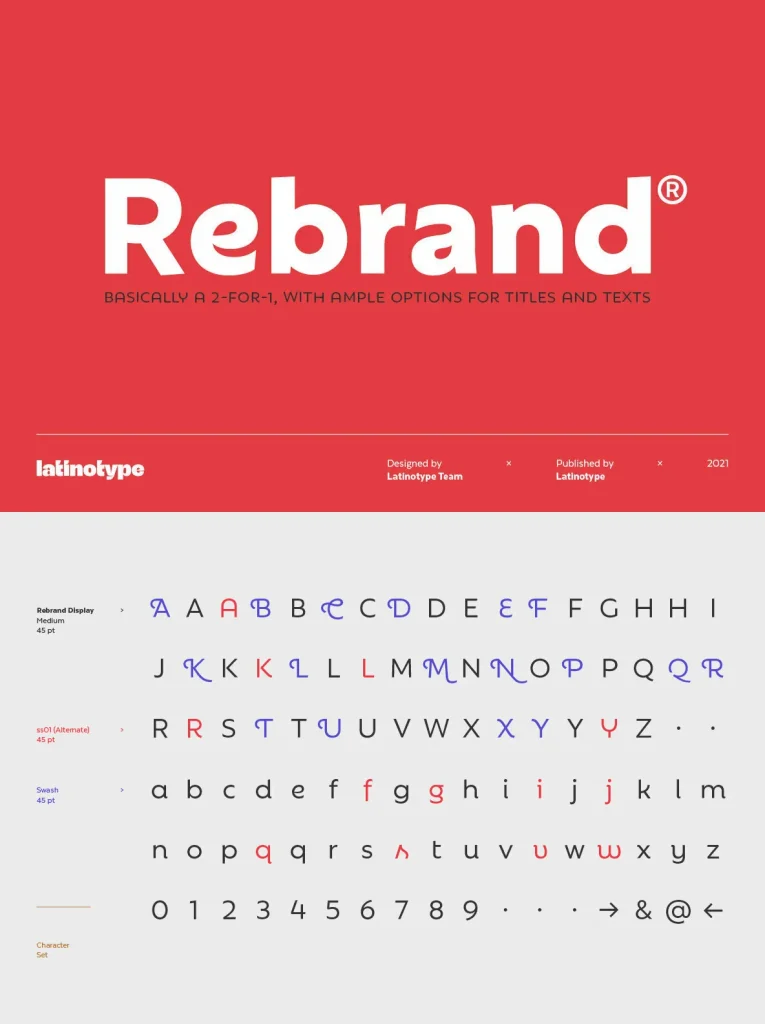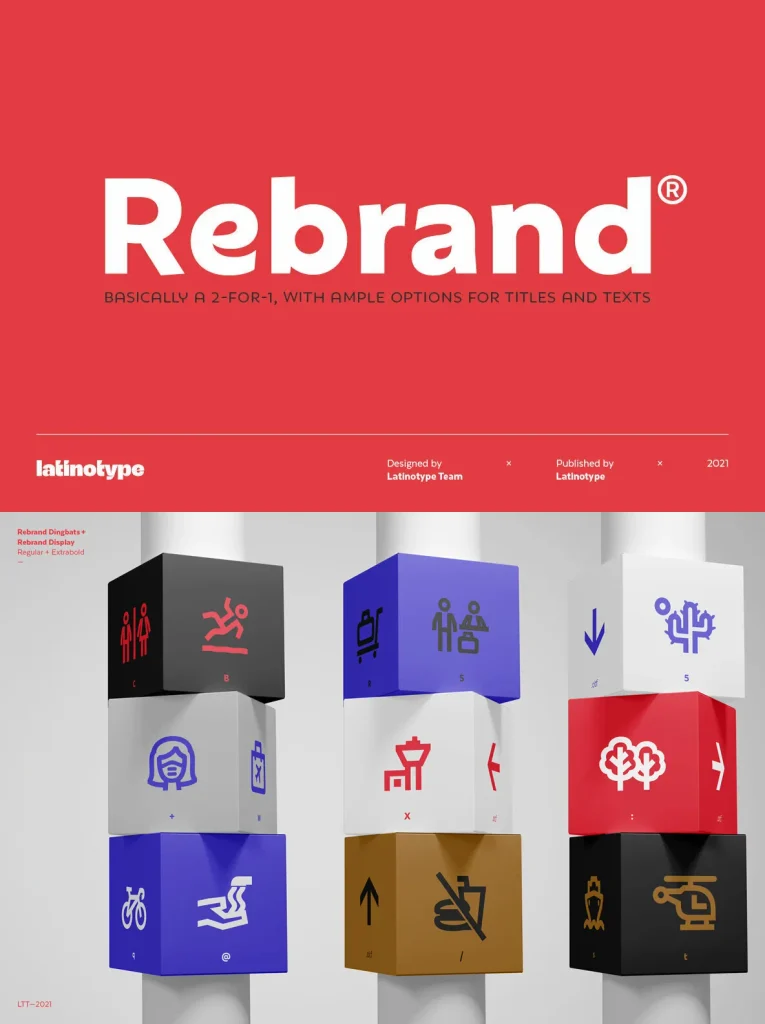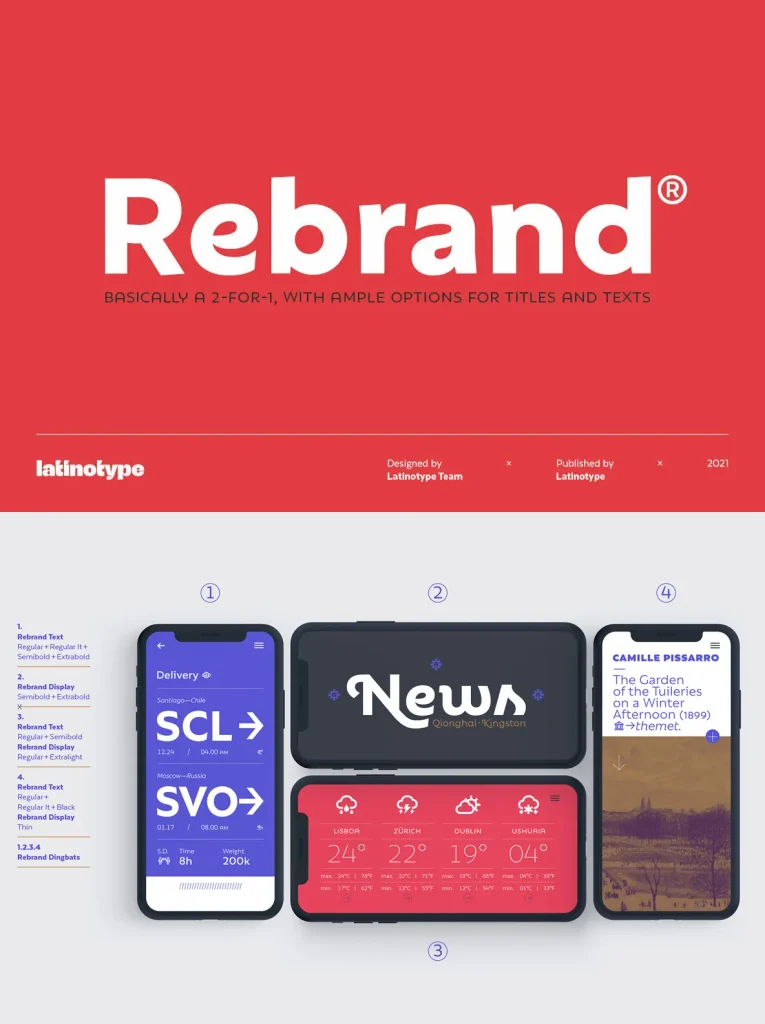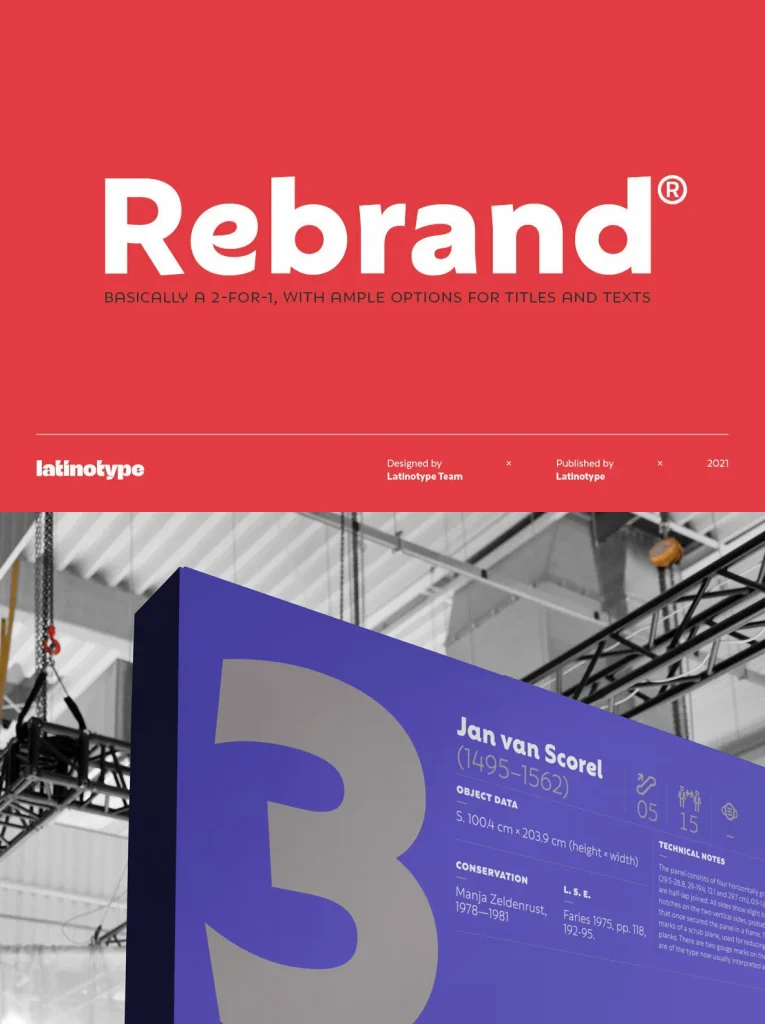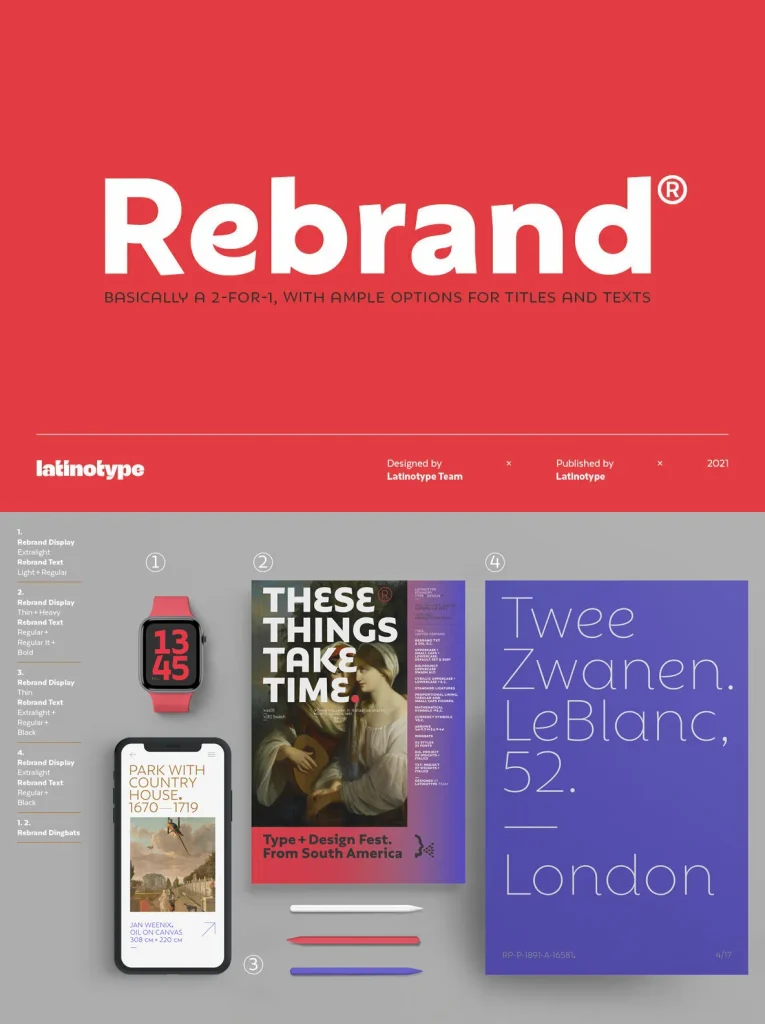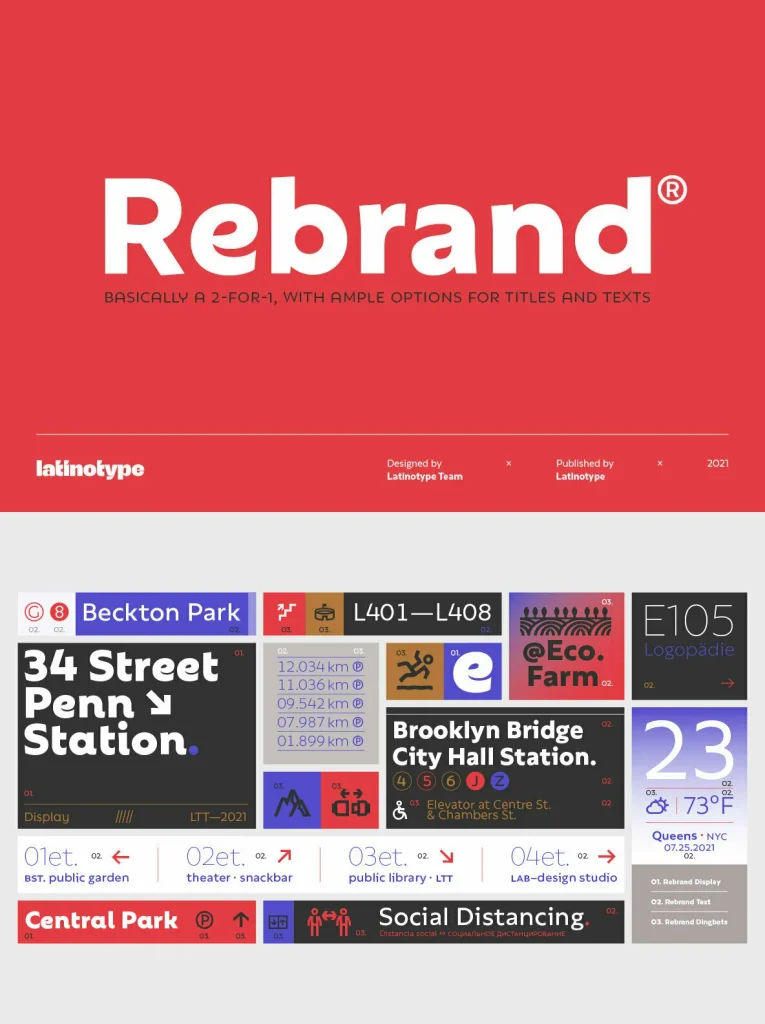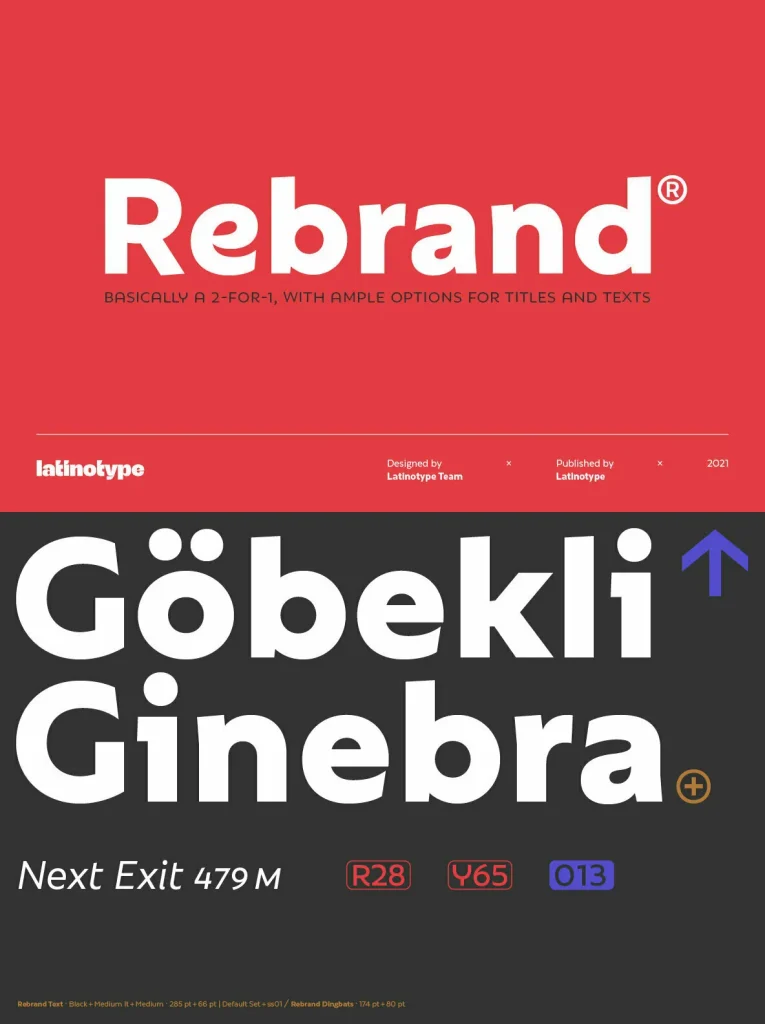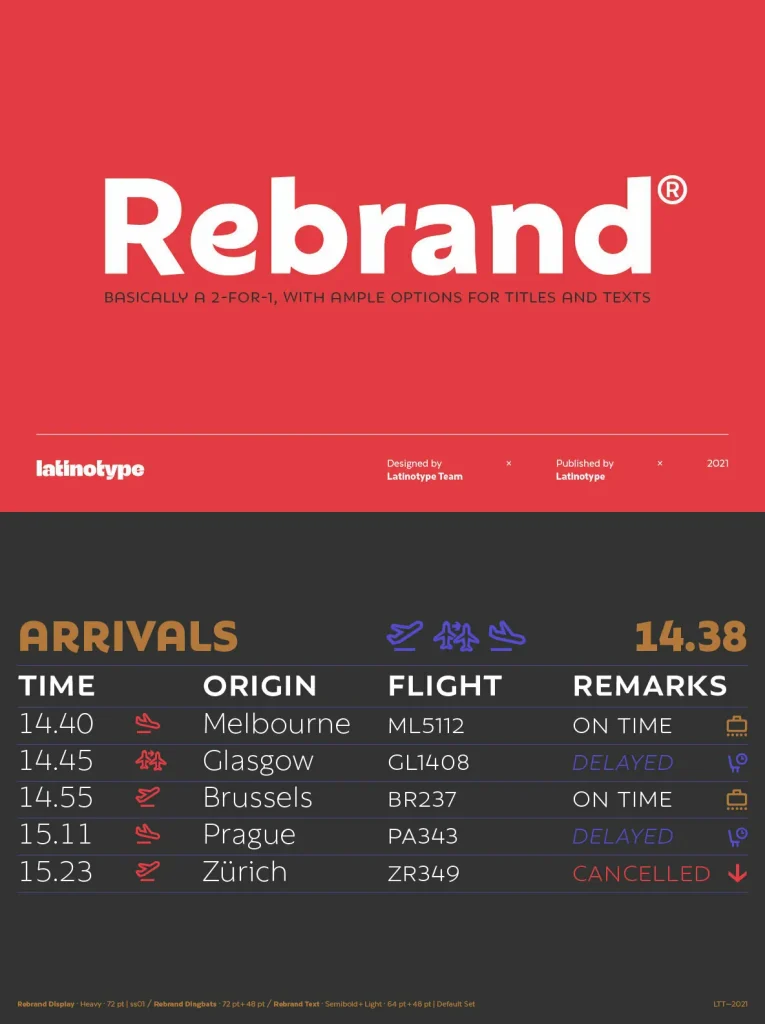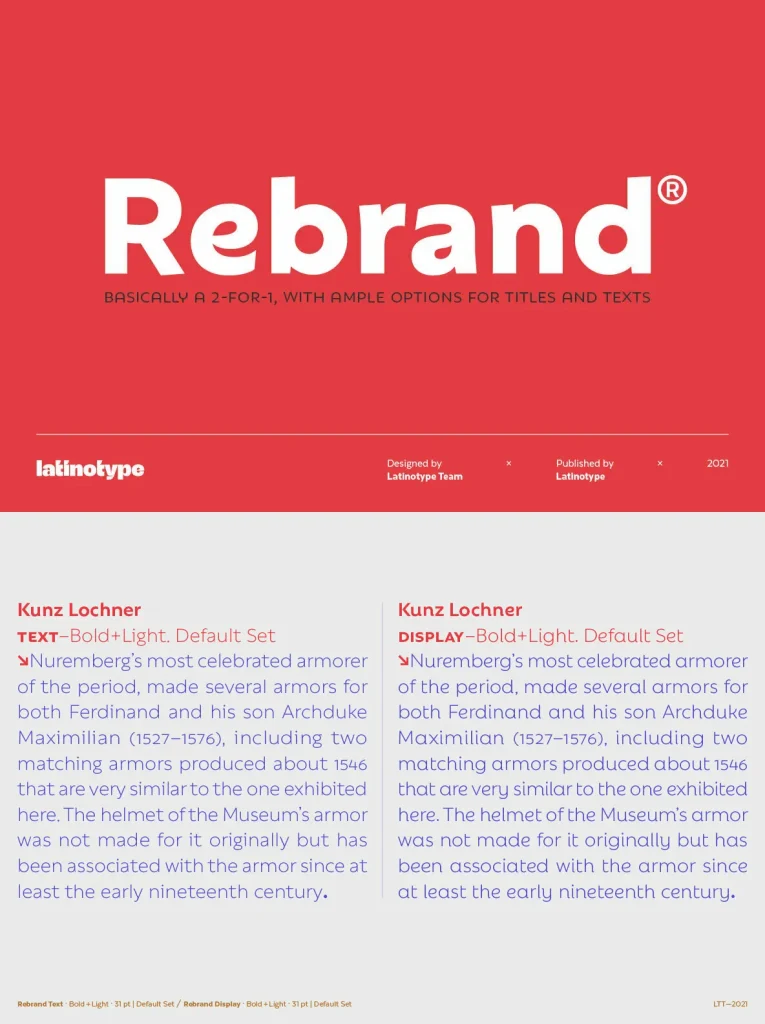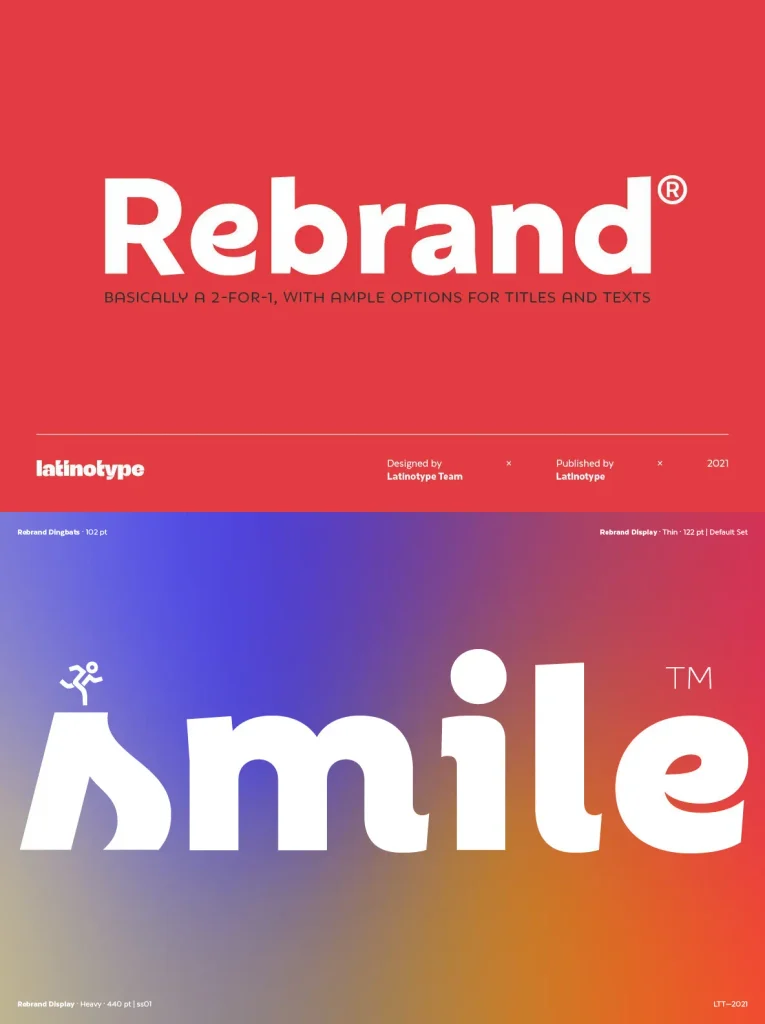
Rebrand Geometric Sans Serif Typeface
Rebrand brings geometry to the forefront with a character that feels both confident and approachable. This Geometric Sans Serif font avoids the rigidity of standard mathematical forms by adding warmth and vibrancy to every letter, making it suitable for a wide range of design applications.
Whether used for branding, editorial layouts, websites, or digital interfaces, Rebrand supports your work with clear structure and a welcoming personality. Its clean lines and inviting curves balance professional clarity with a touch of friendliness, offering flexibility without sacrificing visual impact.
Key Features
Geometric Sans Serif style with approachable shapes
Versatile across branding, editorial, and digital projects
Balanced proportions for easy readability
Ideal for modern, professional environments needing a personable touch